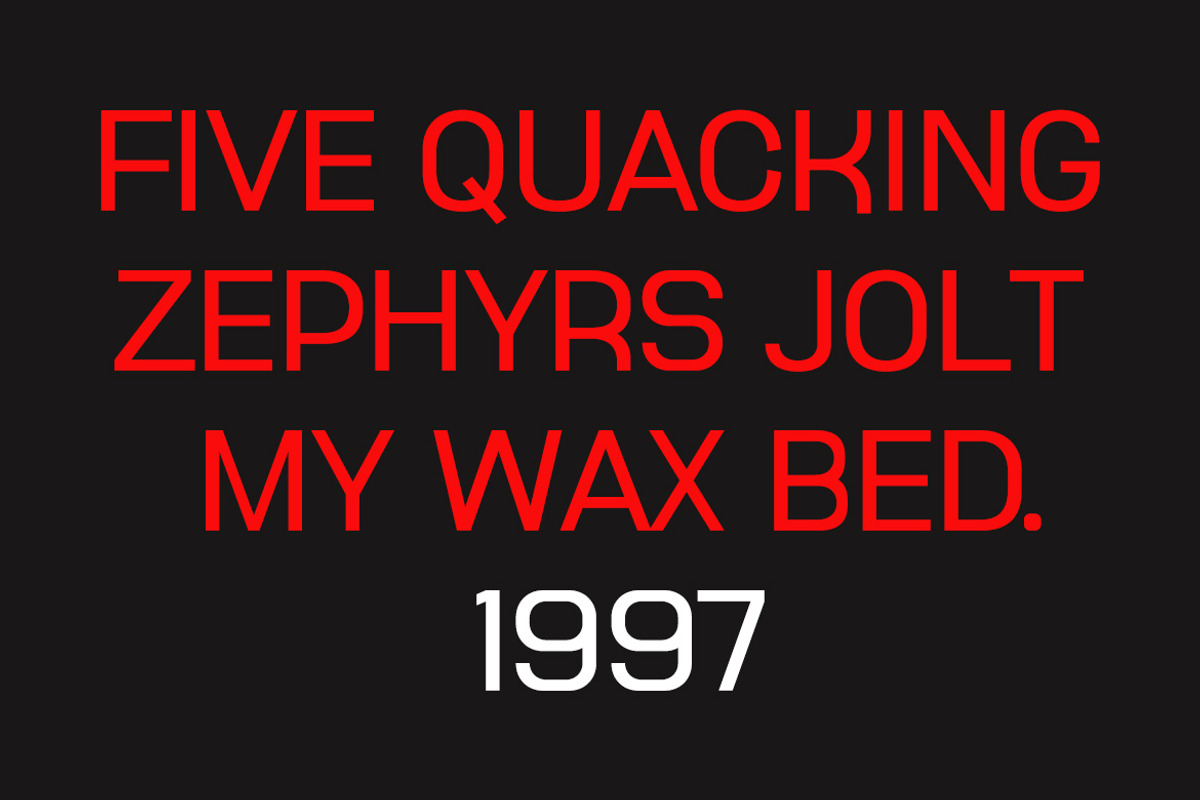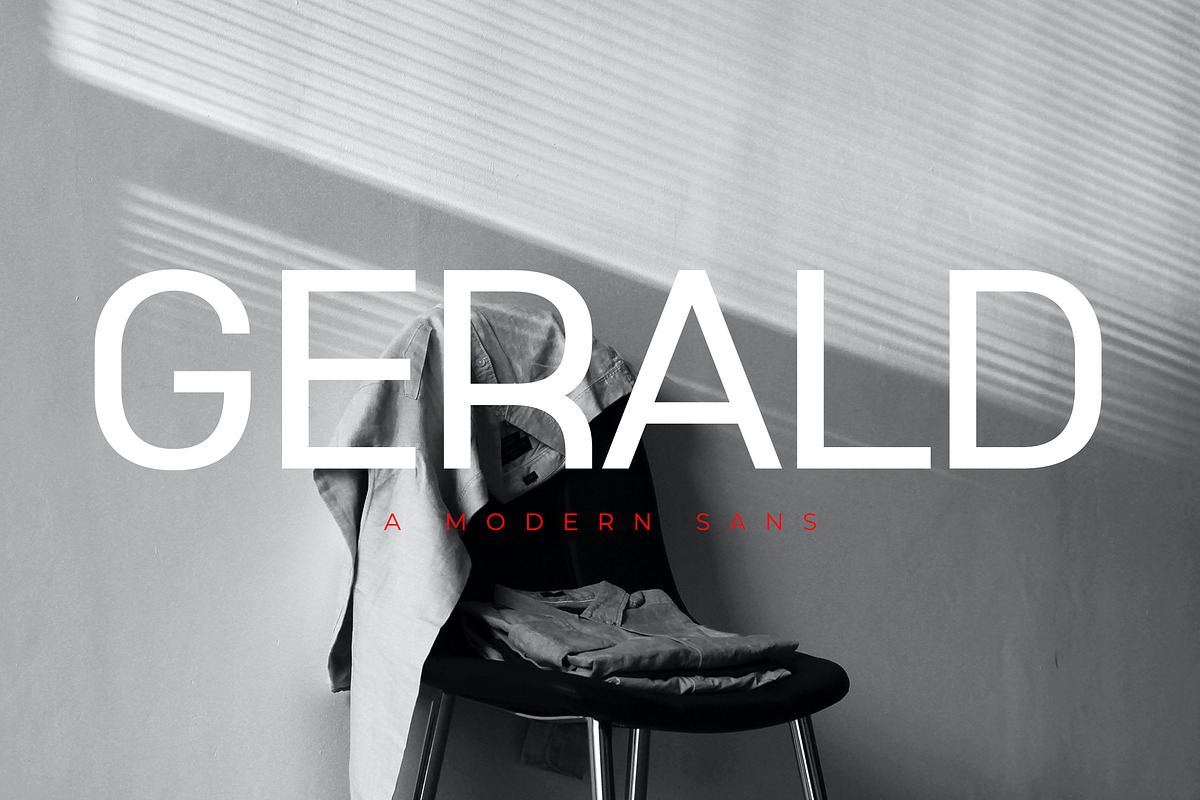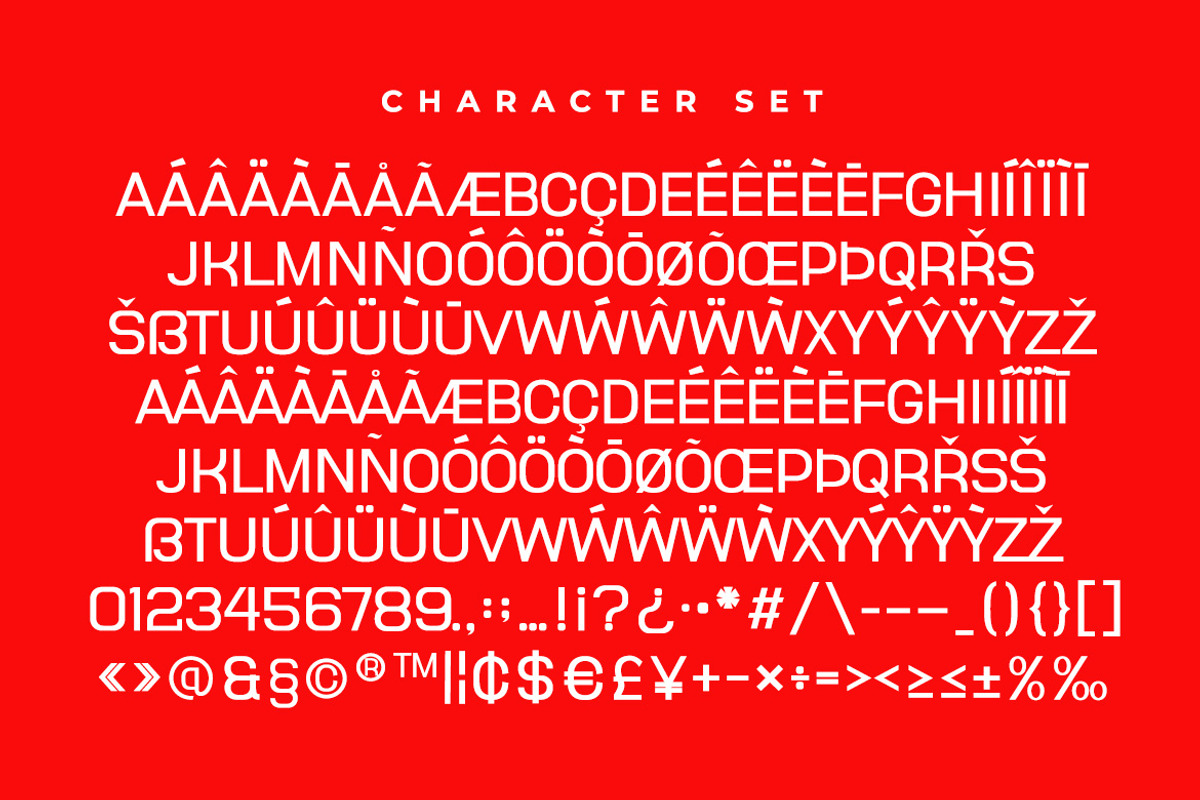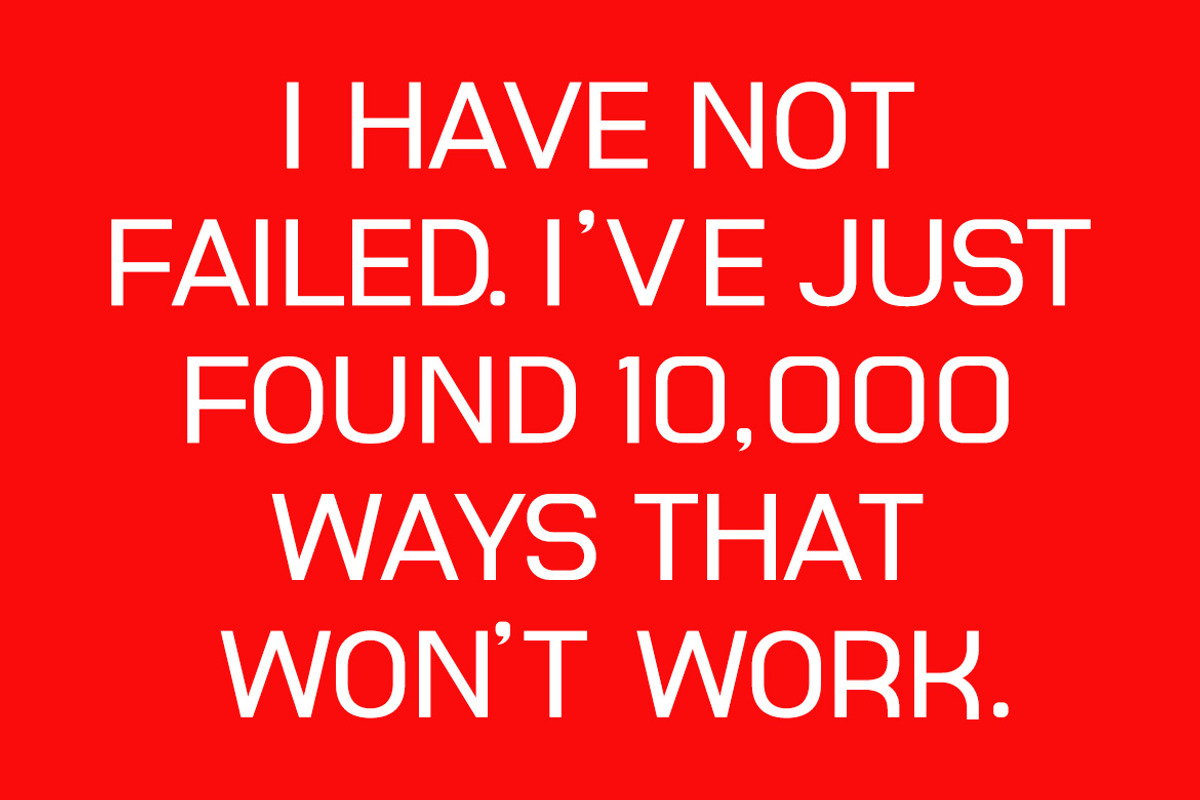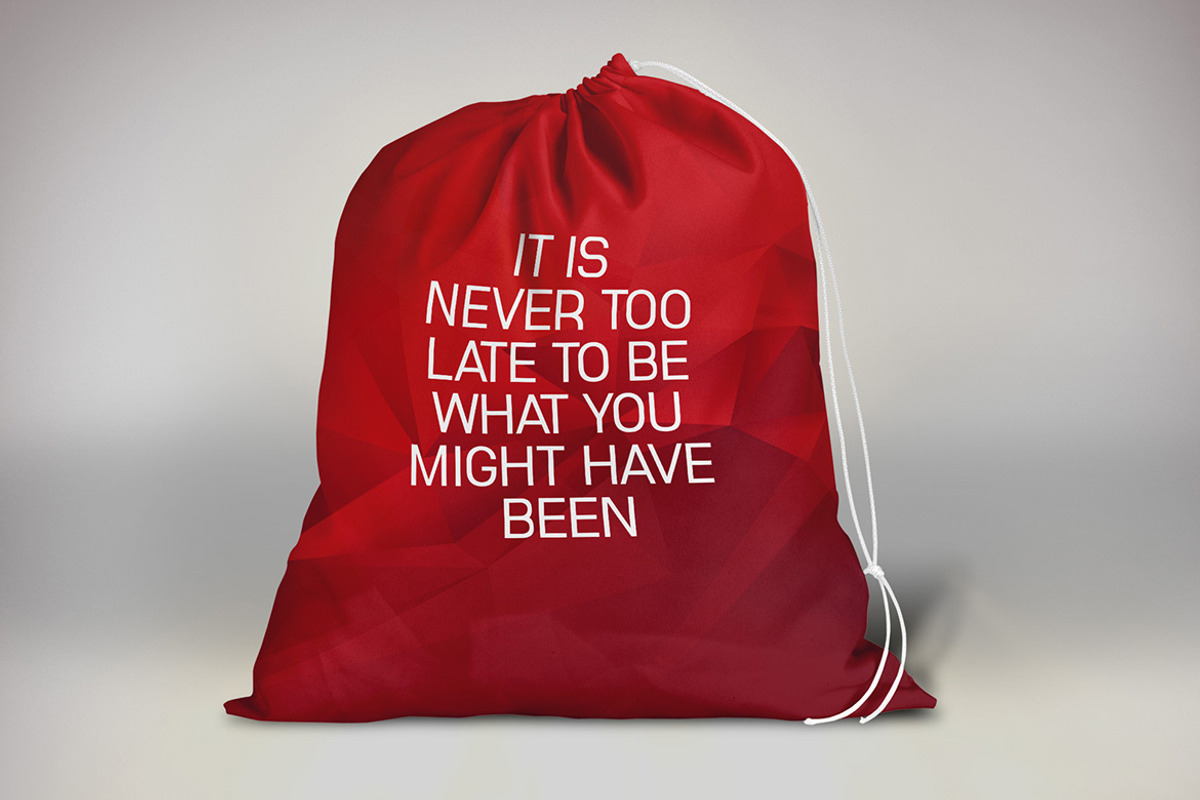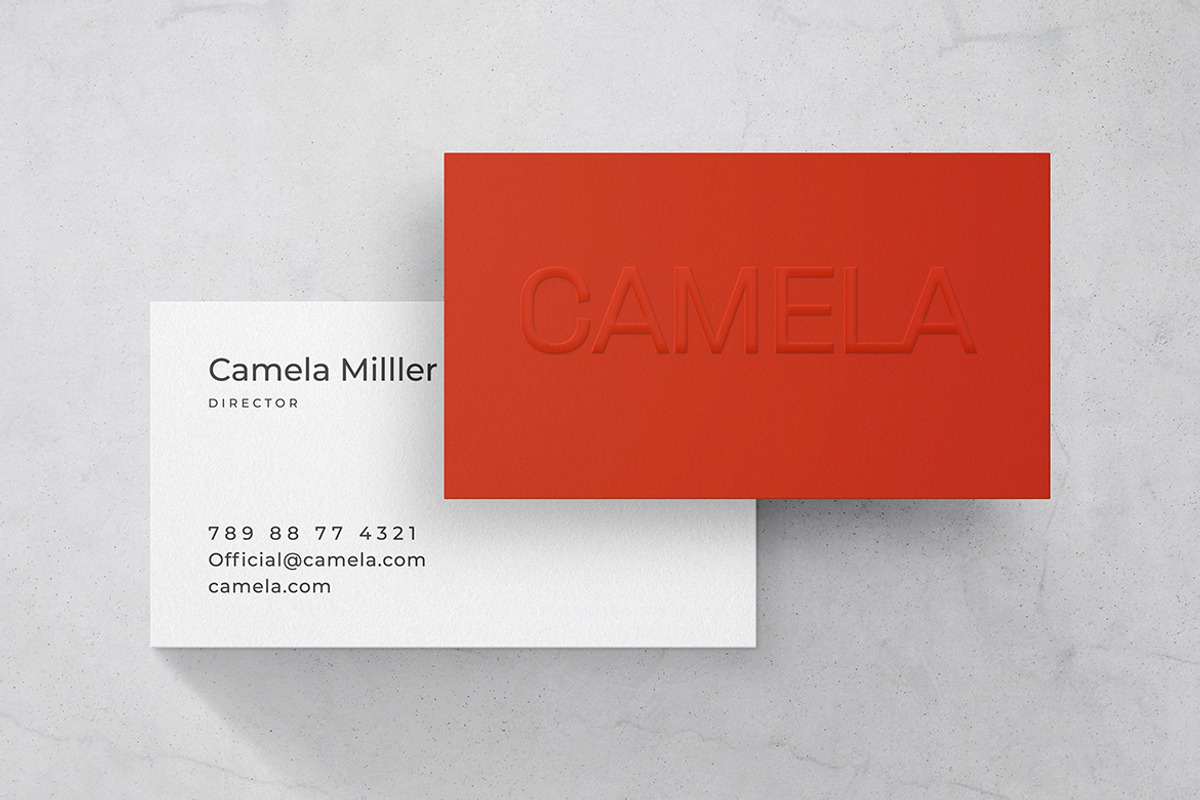
Designed by Rinto Dwi Nugroho Owner of Almeera Std 273 sales
Gerald Sans
Introducing Gerald - Modern Sans. Gerald is a modern and simple font with more unique ligatures, best used as a display for headings, logos, branding, magazines, product packaging and invitations.